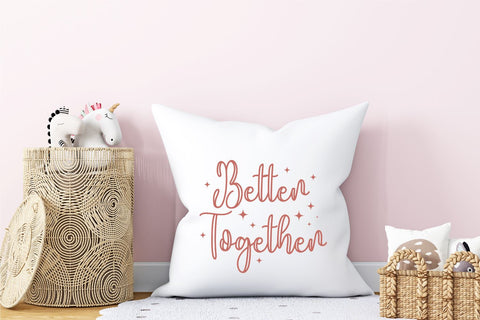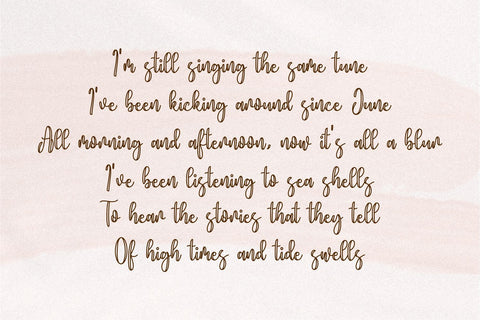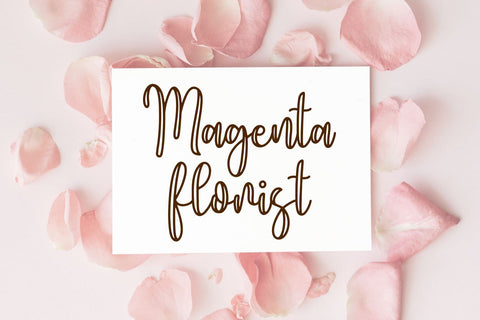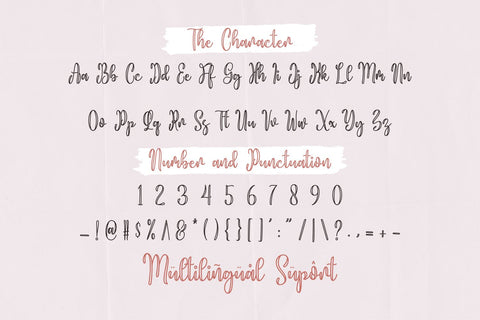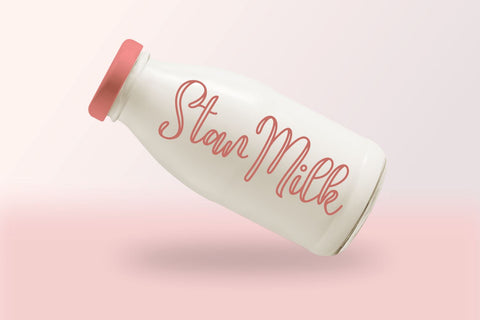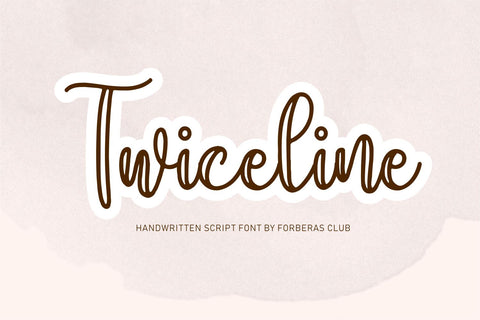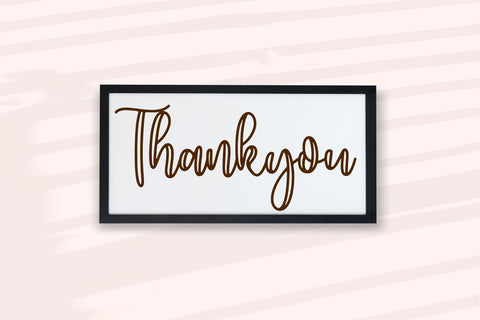
Twice Line
Introducing Twice Line Font by Forberas Club
Twice Line is a Modern Handwritten Font. Twice Line perfect for book cover, product packaging, branding project, megazine, social media, skate zine, band font, or just used to express words above the background. This font includes TTF and OTF, This font also multilingual support.